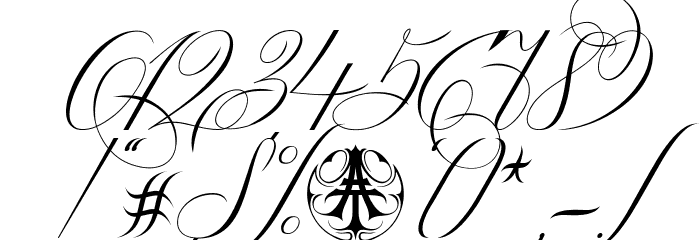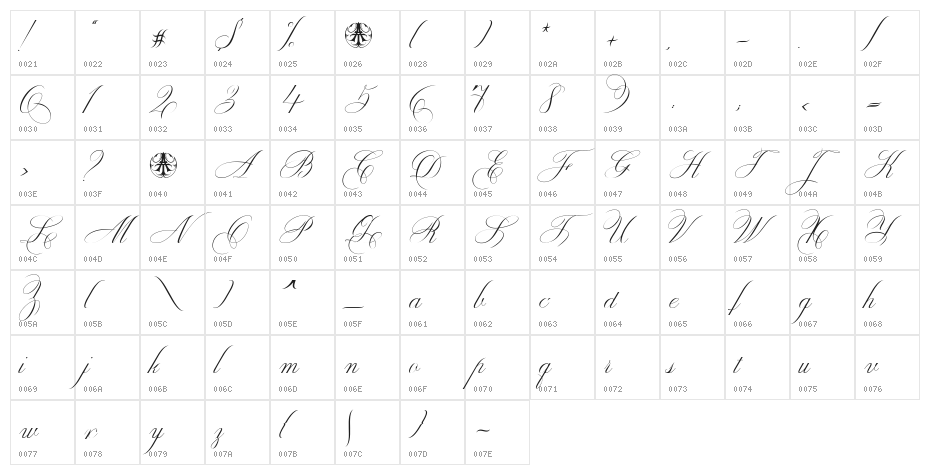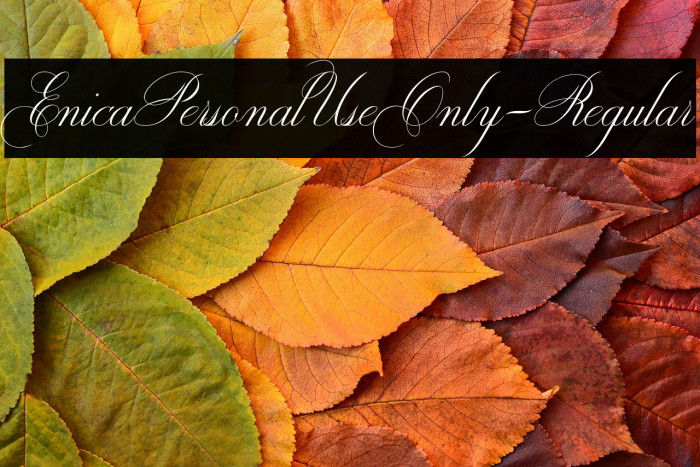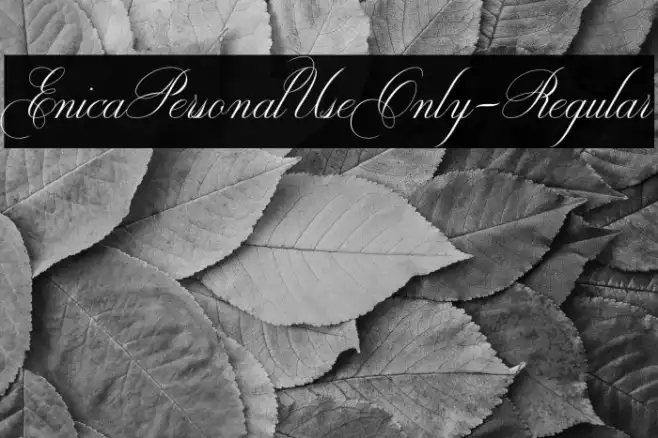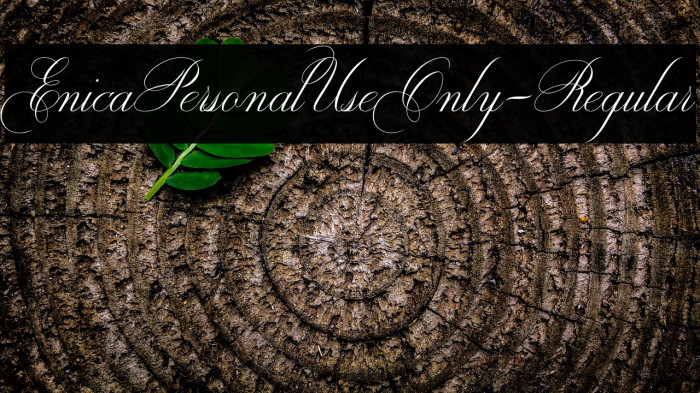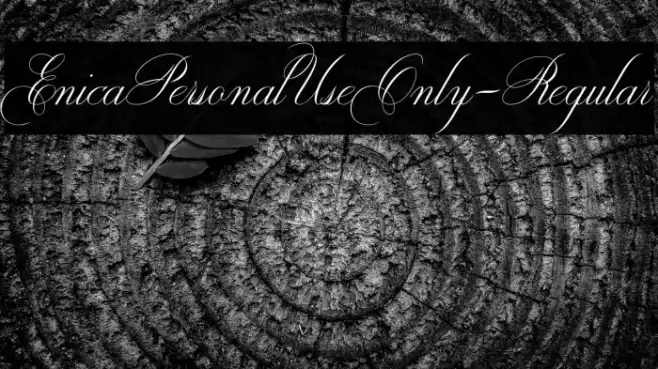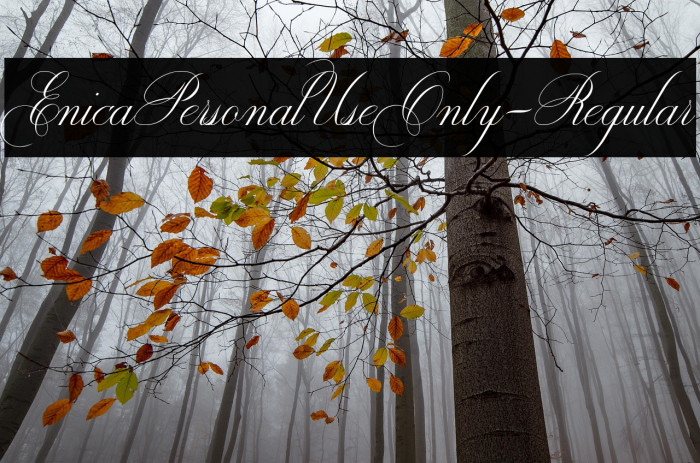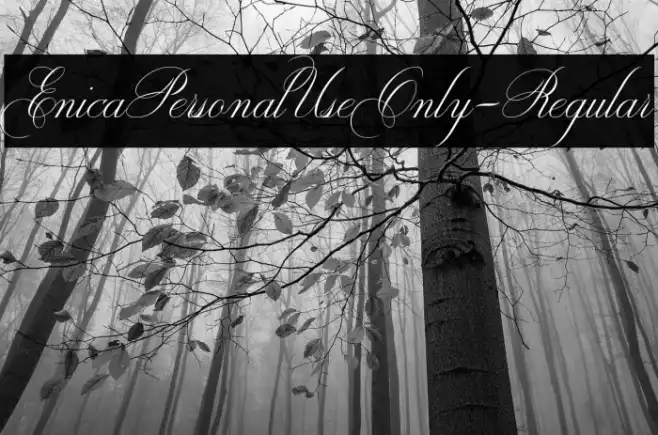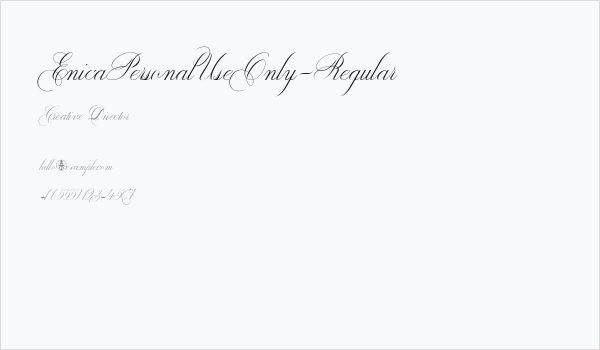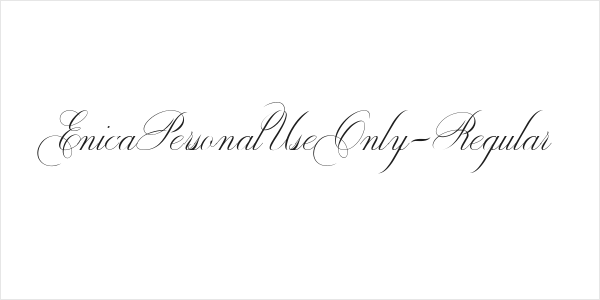
EnicaPersonalUseOnly-Regular Font
EnicaPersonalUseOnly-Regular Description
This elegant script font features intricate and flowing letterforms that exude sophistication and grace. The uppercase letters are adorned with elaborate swashes and flourishes, creating a sense of movement and fluidity. The lowercase letters maintain a consistent style with gentle curves and loops, enhancing the overall aesthetic. Numbers and special characters are equally ornate, adding to the font's decorative appeal. The thin strokes and high contrast between thick and thin lines contribute to its refined appearance, making it suitable for formal and luxurious designs.
| Proposed Projects | Ideal for wedding invitations, luxury branding, elegant stationery, and high-end product packaging. |